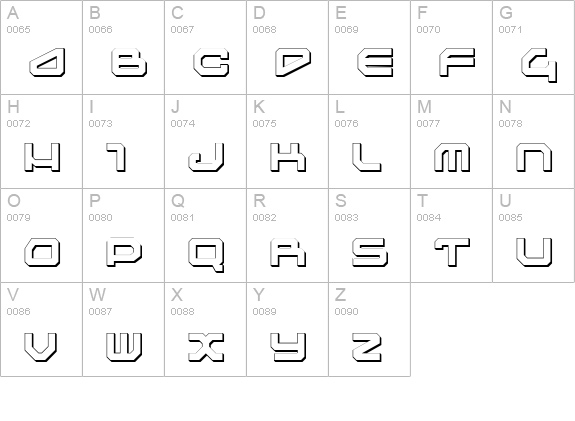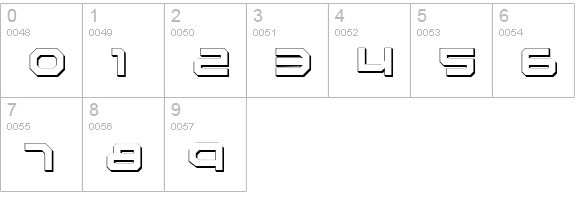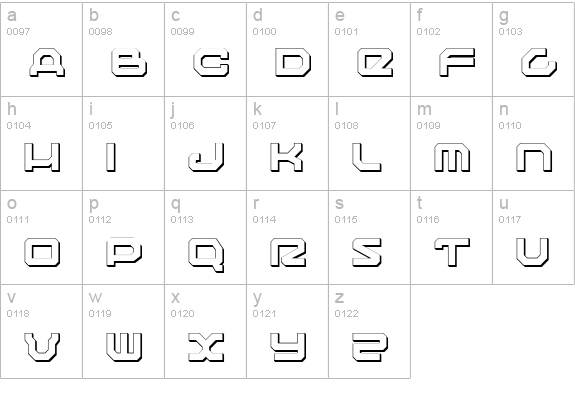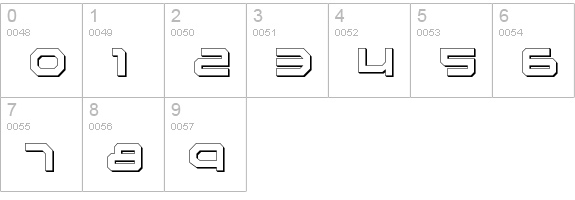
Traveler Shadow is a bold and striking font that exudes a sense of adventure and mystery. Its unique shadow effect adds depth and intrigue to any design, making it perfect for travel-themed projects, posters, and branding. The font's edgy yet elegant style captures the essence of exploration and discovery, making it a versatile choice for both print and digital media. What sets Traveler Shadow apart is not only its captivating design, but also the fact that it is available for free download at FontsMarket.com. This means that designers and creatives can easily access this eye-catching font without any cost, making it an excellent choice for those looking to add a touch of excitement and sophistication to their work. Whether you're working on a travel blog, a promotional flyer, or a logo for a tourism company, Traveler Shadow is sure to make a bold statement and leave a lasting impression. Download this font for free today and let your creativity soar to new heights!